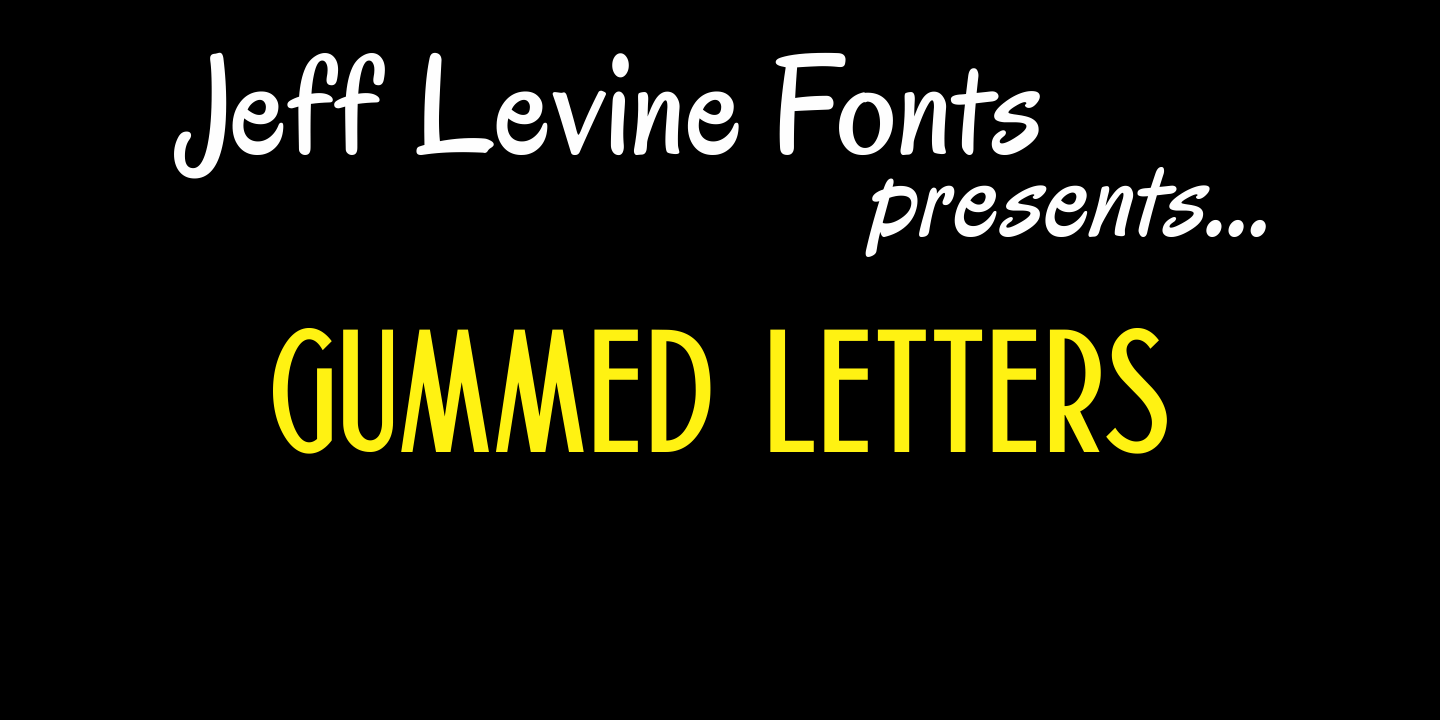
Gummed Letters
The idea for Gummed Letters JNL came from an online auction of some foil-embossed gummed letters from the 1940s and 1950s. One particular set was of a sanserif face that hadn't been produced in decades, and Jeff Levine felt it was worth of a digital treatment.